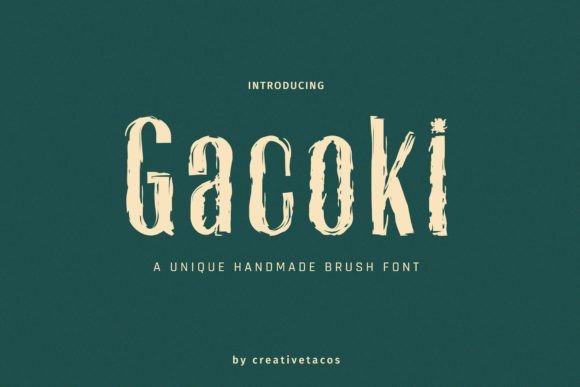
Introduction to Gacoki  Font
Experience the perfect blend of vintage aesthetic and modern functionality with the Gacoki Brush Font.
This artistically designed typeface offers a fresh take on the classic brush script, giving your designs an edge in originality and appeal Inspired by the imperfections and beautiful strokes of a painter’s brush, Gacoki carries a raw yet refined feel.
Why Choose Gacoki  Font?
Gacoki  Font offers exceptional quality and versatility, making it a valuable addition to your design toolkit. Whether you’re creating for personal projects or commercial use, Gacoki  Font delivers professional results.